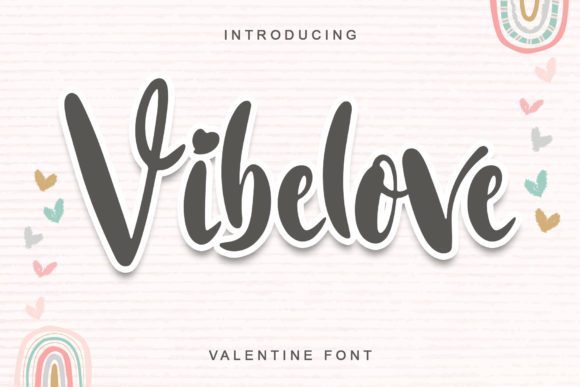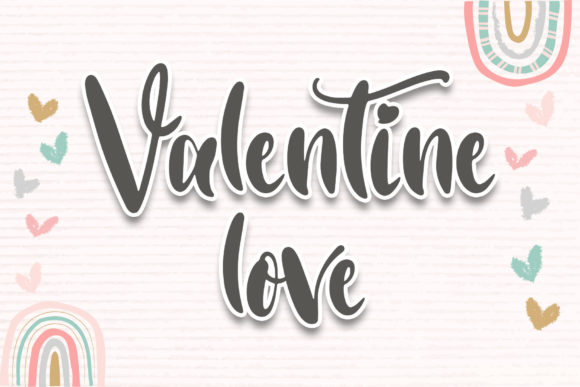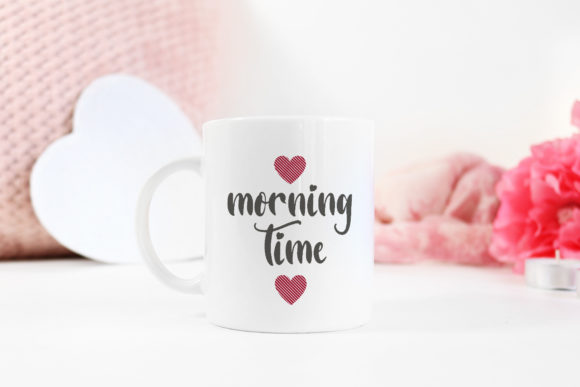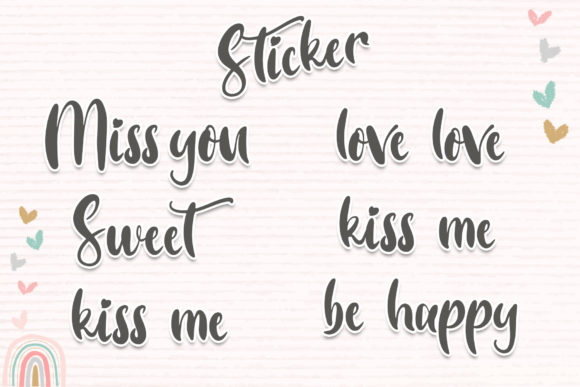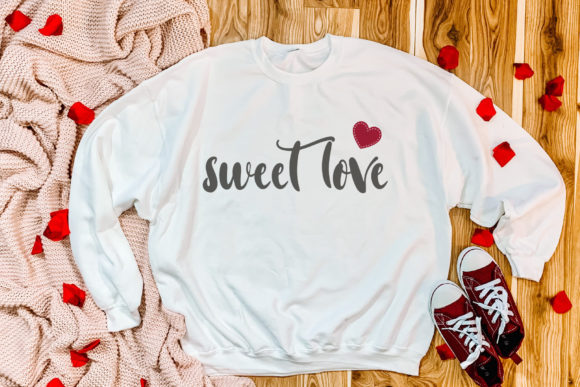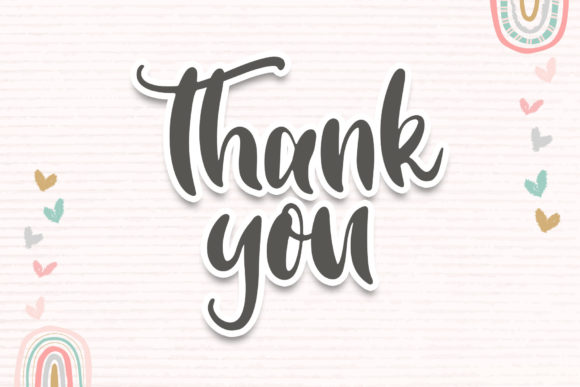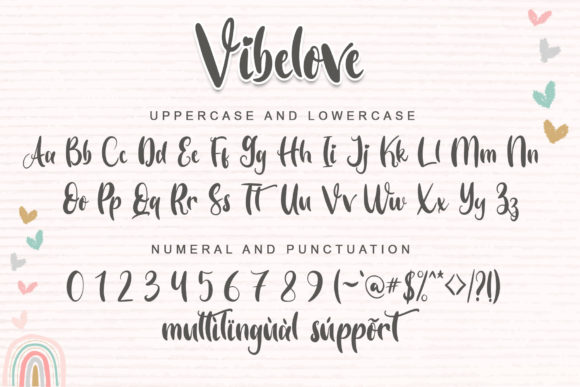
Vibelove Font
About Vibelove Font
Vibelove is a lovely script font perfect for any Valentine’s Day design. Add it with confidence to your creative projects, and they will capture everyone’s heart and attention!